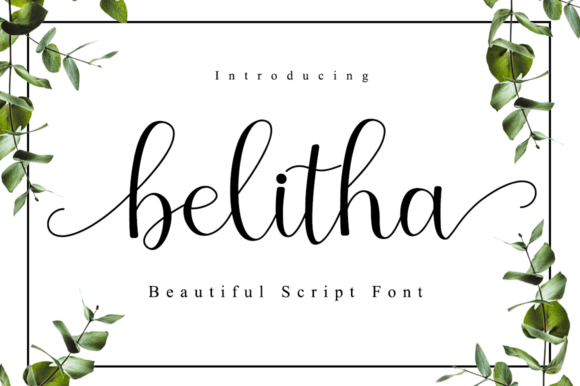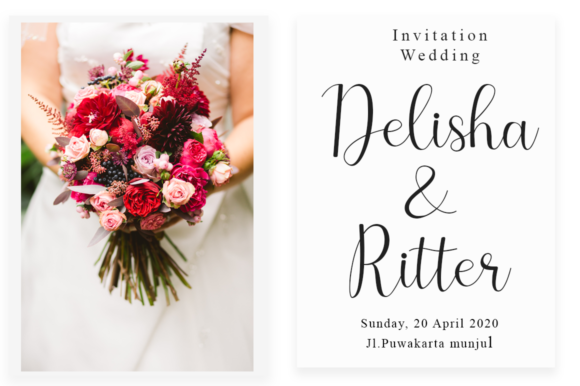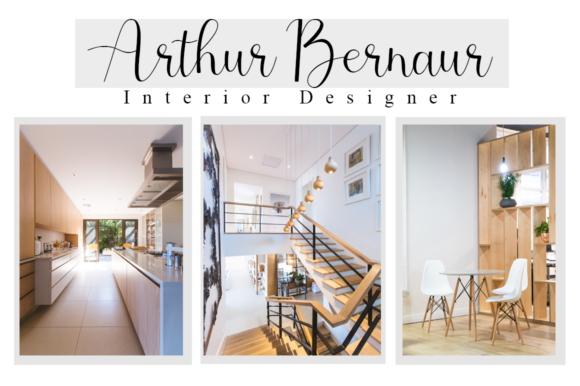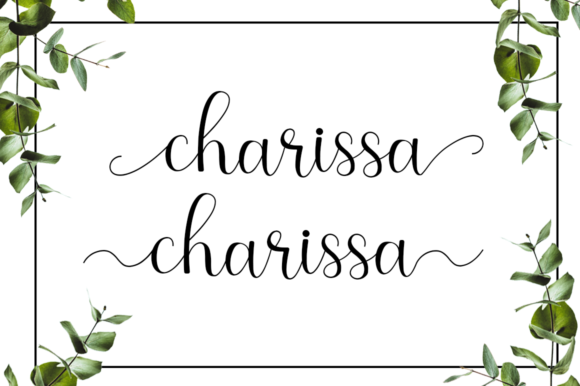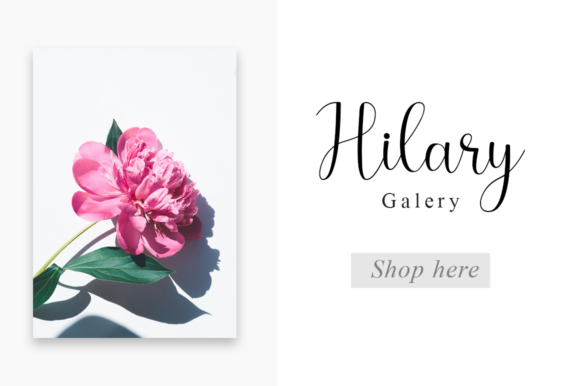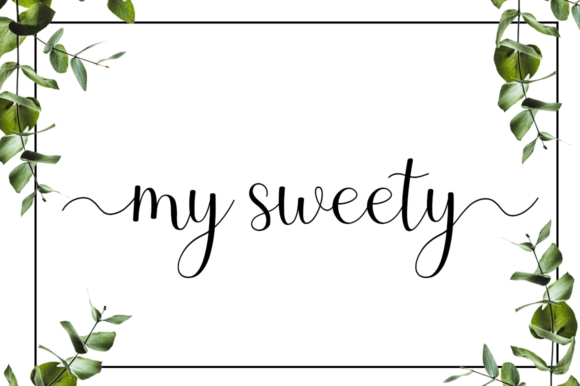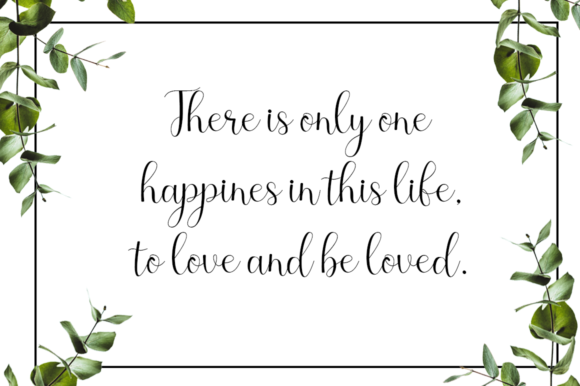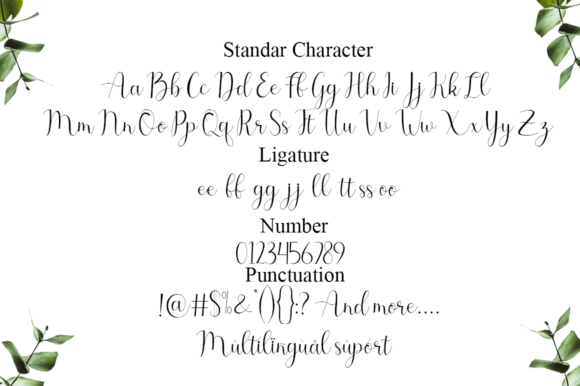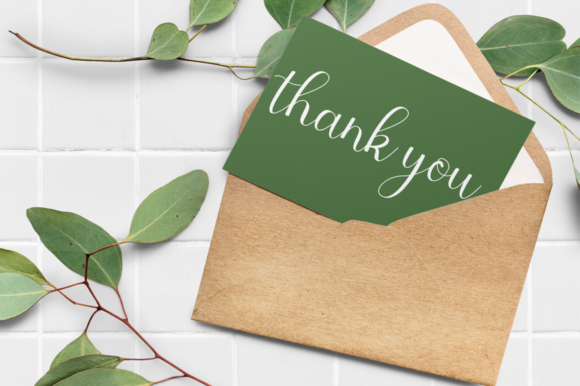
Belitha Font
About Belitha Font
Belitha is a modern tribute to classic calligraphy and delivers an outstanding font experience. Use this stunning script to add a decorative touch in an instant!